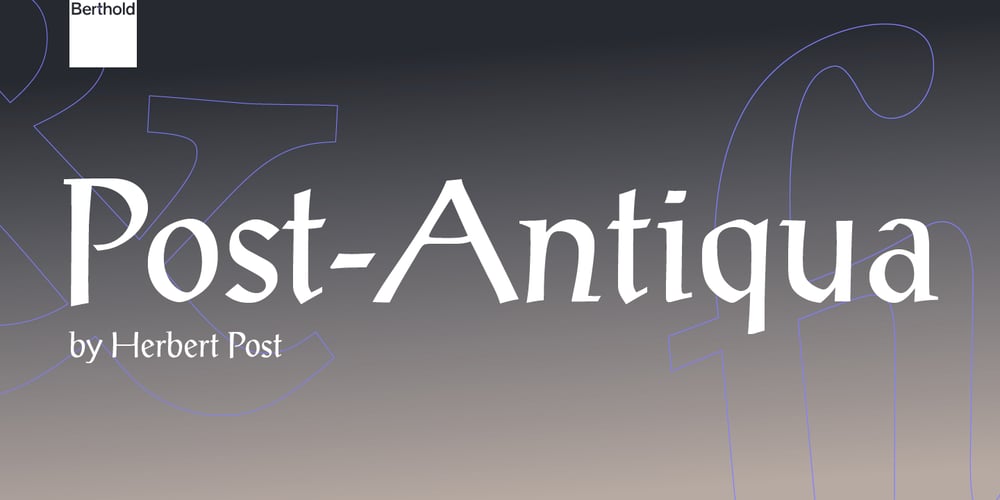
Post-Antiqua Font Family was designed by Herbert Post and published by Berthold. Post-Antiqua contains 4 styles and family package options. Created in 1932 by German teacher, calligrapher and printer Herbert Post, Post-Antiqua originally consisted of capital letters only. Then, in 1939 Berthold released the lower case letters. The design is based on early hand-lettering. It is useful for introducing a casual tone into small bodies of text or conveying elegance in larger displays.